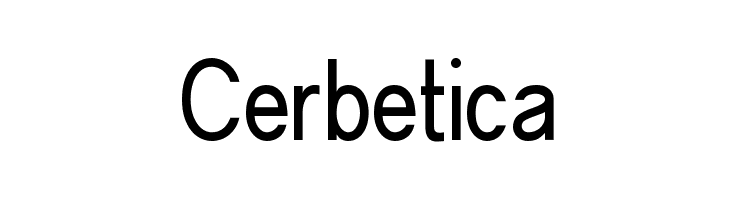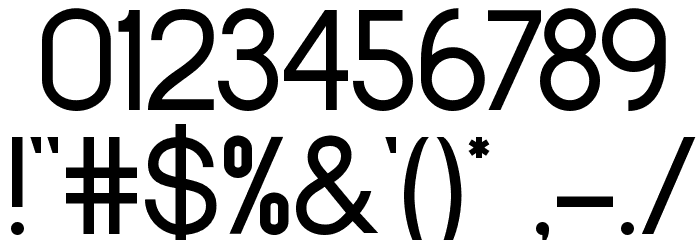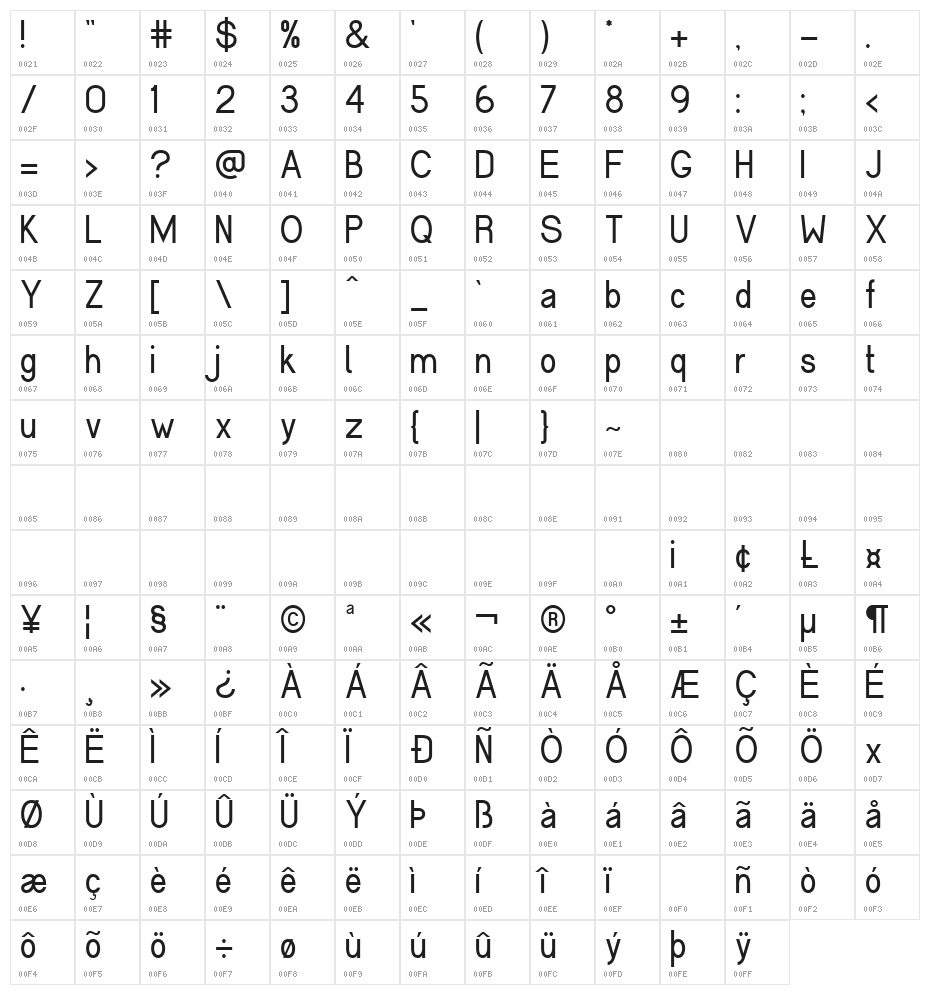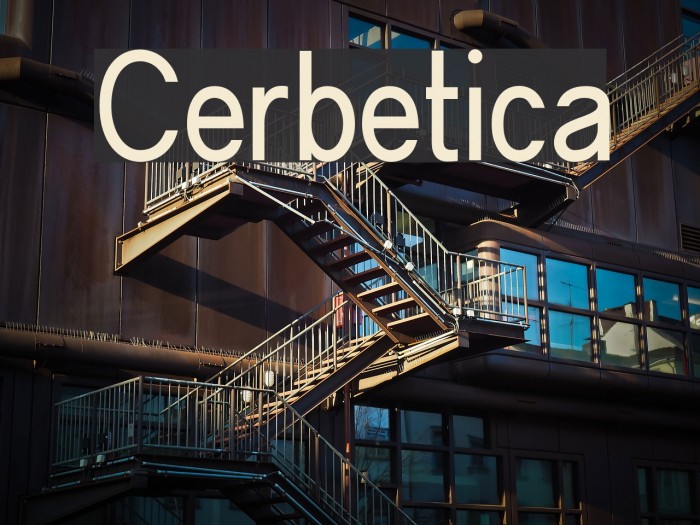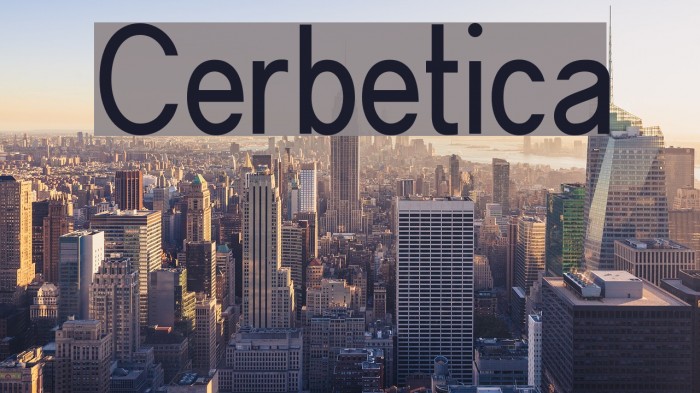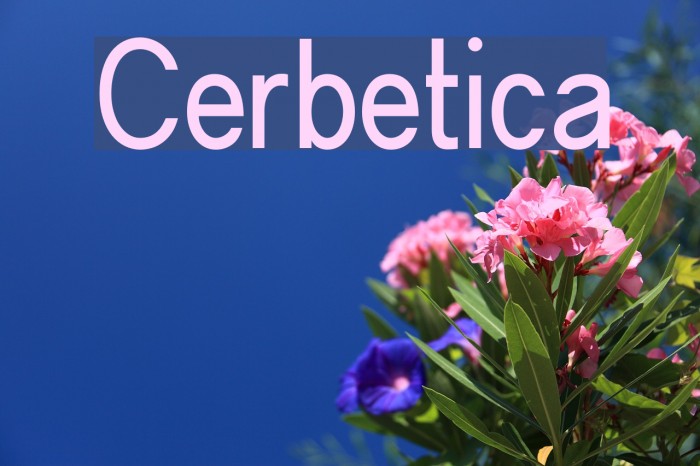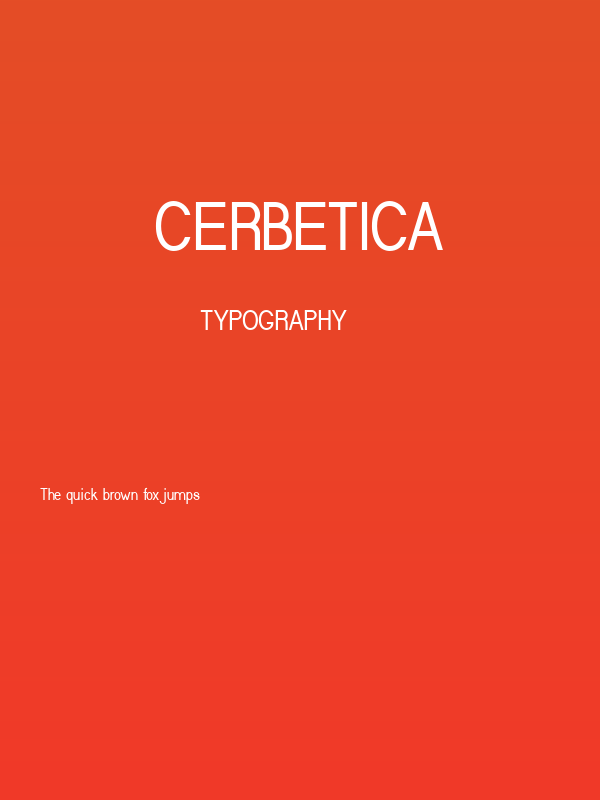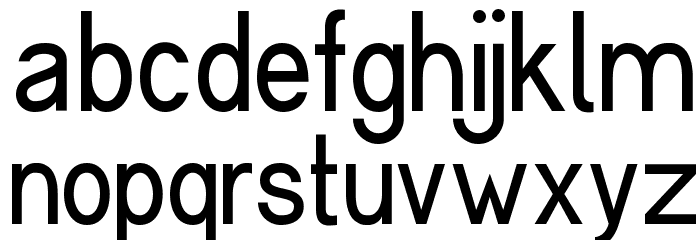
Cerbetica Font
Cerbetica Description
This font is a modern sans-serif typeface characterized by its clean and straightforward design. It features uniform stroke widths, giving it a balanced and harmonious appearance. The characters are well-proportioned, with a slightly condensed width that enhances readability while maintaining a sleek and professional look. The uppercase letters are bold and assertive, while the lowercase letters are more rounded, providing a friendly and approachable feel. The numerals are clear and distinct, making them easy to read. Special characters are well-integrated, maintaining the overall aesthetic of the font.